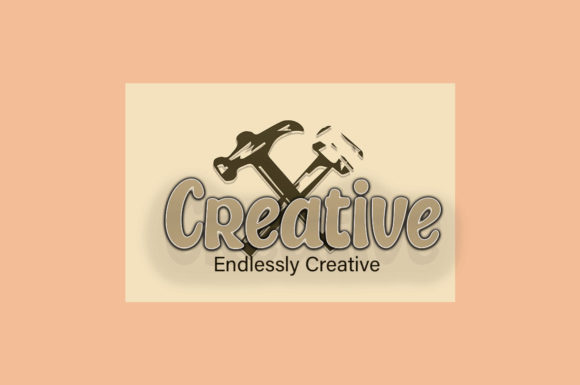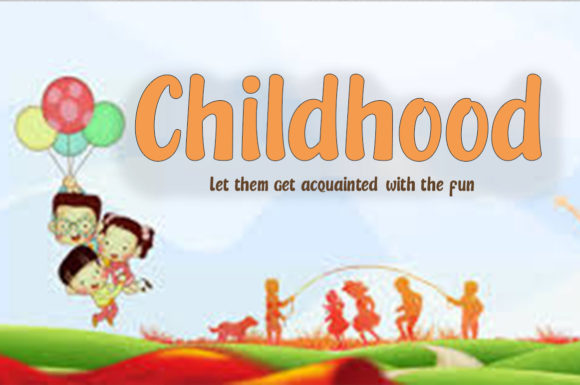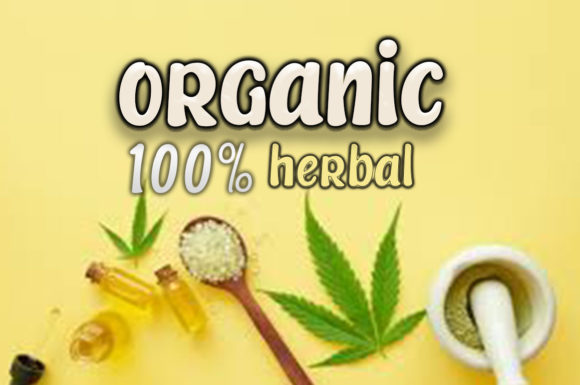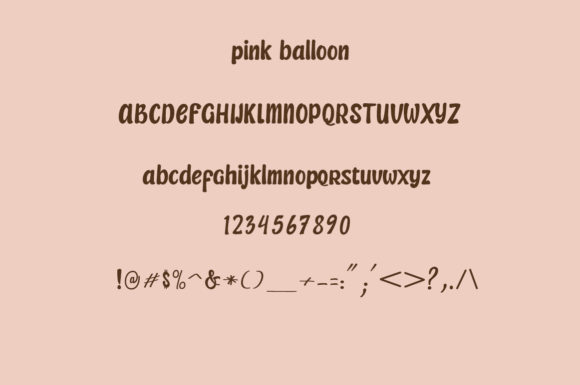
Introduction to Pink Balloon Font
Pink Balloon is a thick-lettered yet relaxed display font.
Suitable for a wide variety of designs due to its neat and simple style, this font has the potential to become your favorite go-to font, no matter the occasion .
Key Features of Pink Balloon Font